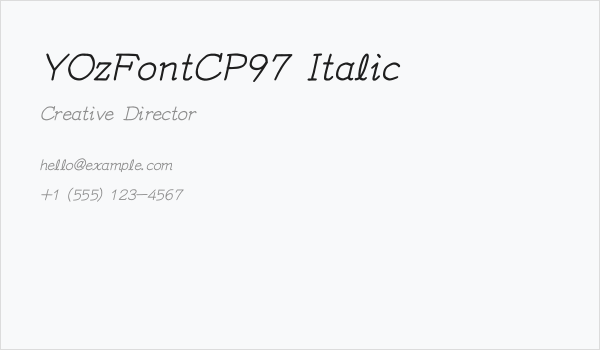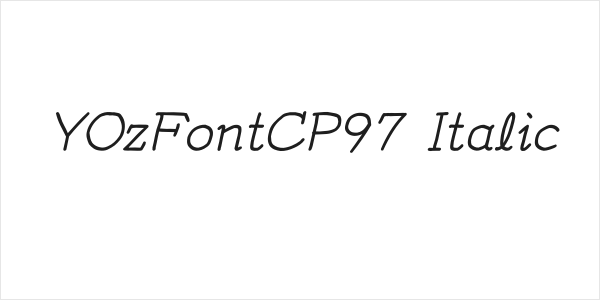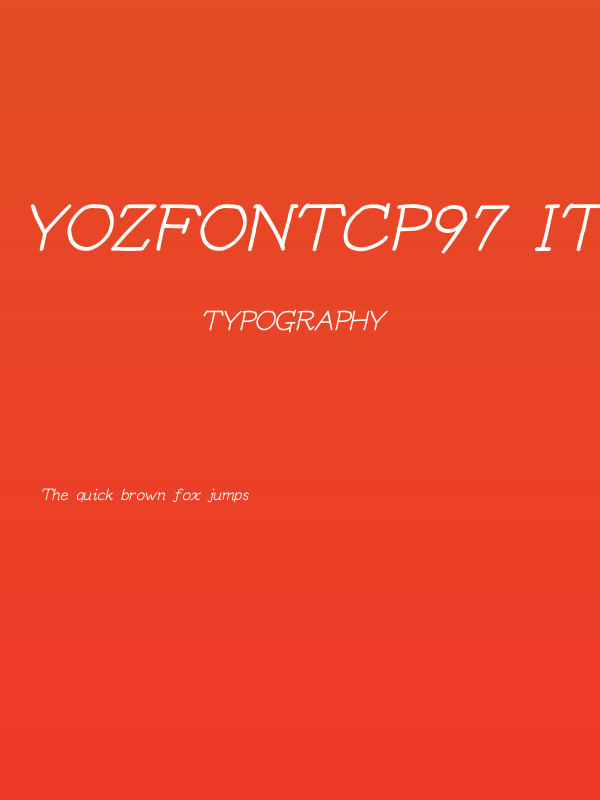
YOzFontCP97 Italic Font
YOzFontCP97 Italic Description
This font features an elegant italic style with smooth, flowing curves that give it a sophisticated and dynamic appearance. The characters are slightly slanted to the right, enhancing the sense of motion and fluidity. The uppercase letters are tall and slender, while the lowercase letters maintain a consistent height, contributing to a harmonious and balanced look. The numerals are clear and easy to read, with a uniform thickness that matches the letters. Special characters are well-integrated, maintaining the overall aesthetic. The font's design is both modern and timeless, making it versatile for various applications.